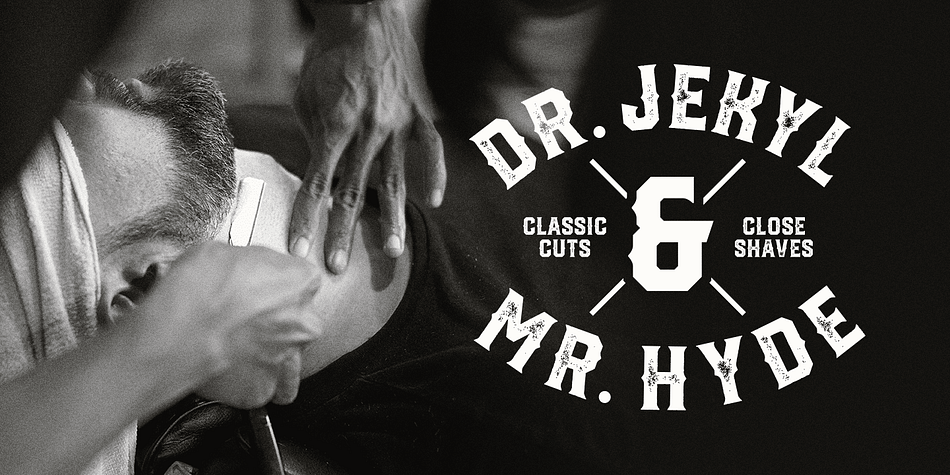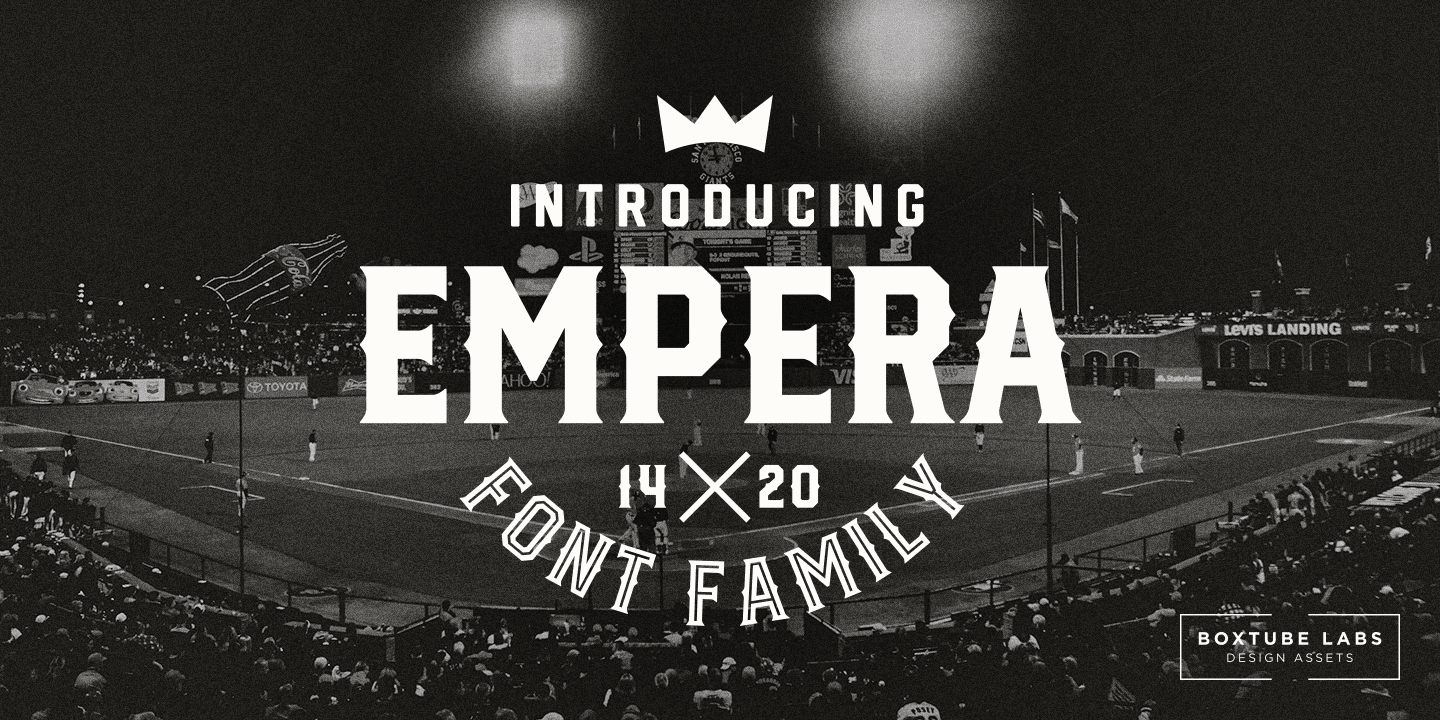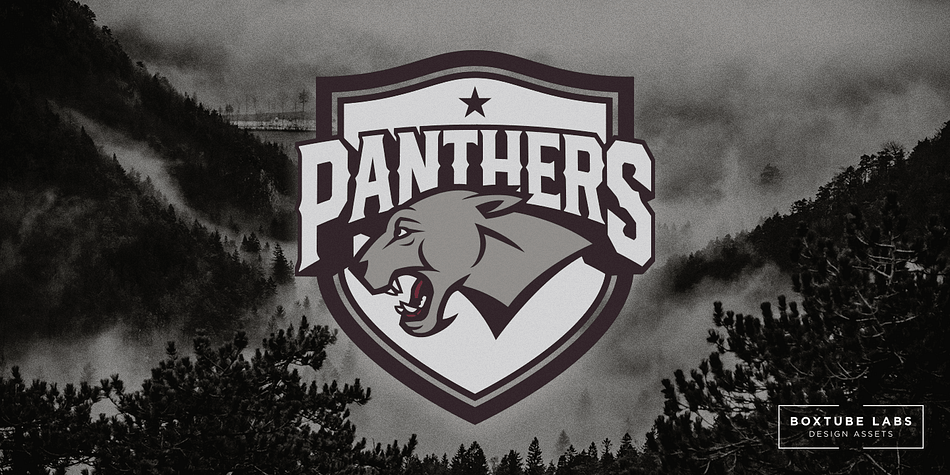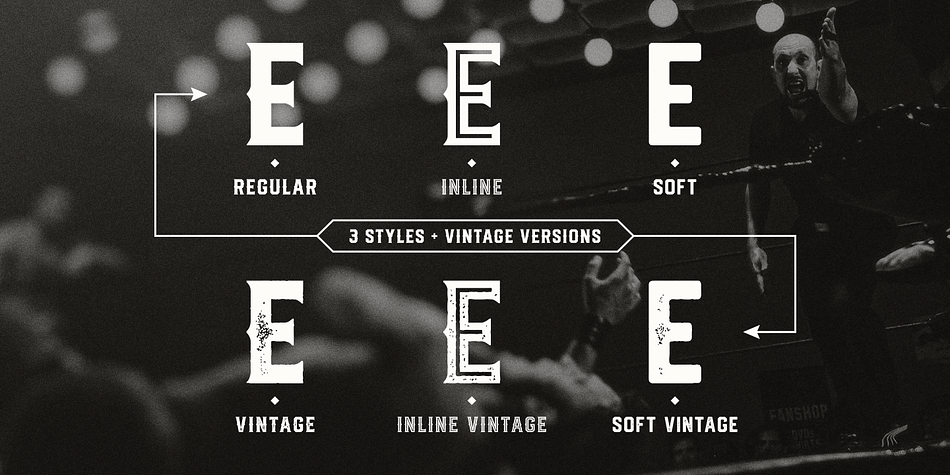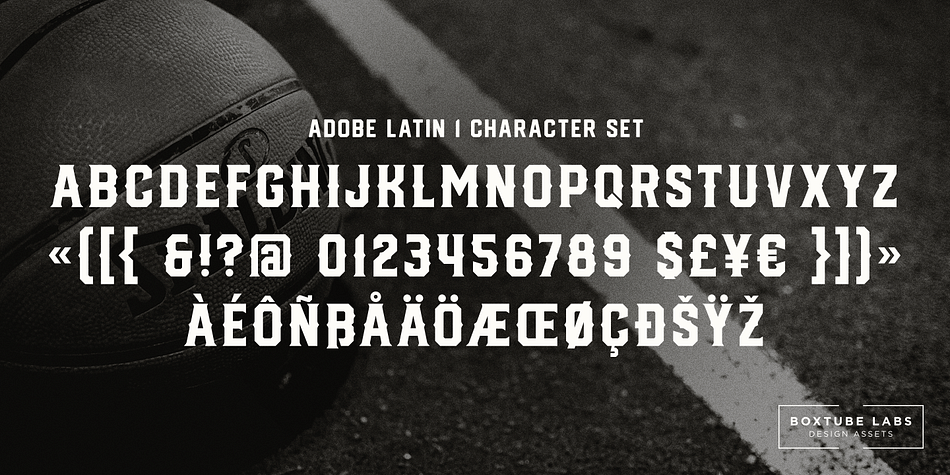
EMPERA
Empera is a display sans and display serif font family. This typeface has six styles and was published by BoxTube Labs.
Empera is a fearless athletic font family with six creative styles for added flexibility and variation. It’s perfect for sports logos, branding, posters, apparel design with it’s bold and confident appearance. The upper- and lowercase vintage characters comes with different renders to add authenticity and a more natural worn look.
Empera features a full Adobe Latin 1 character set, with support for most western languages including: Afrikaants, Basque, Breton, Catalan, Danish, Dutch, English, Finnish, French, Gaelic, German, Icelandic, Indonesian, Irish, Italian, Norwegian, Portuguese, Sami, Spanish, Swahili and Swedish.